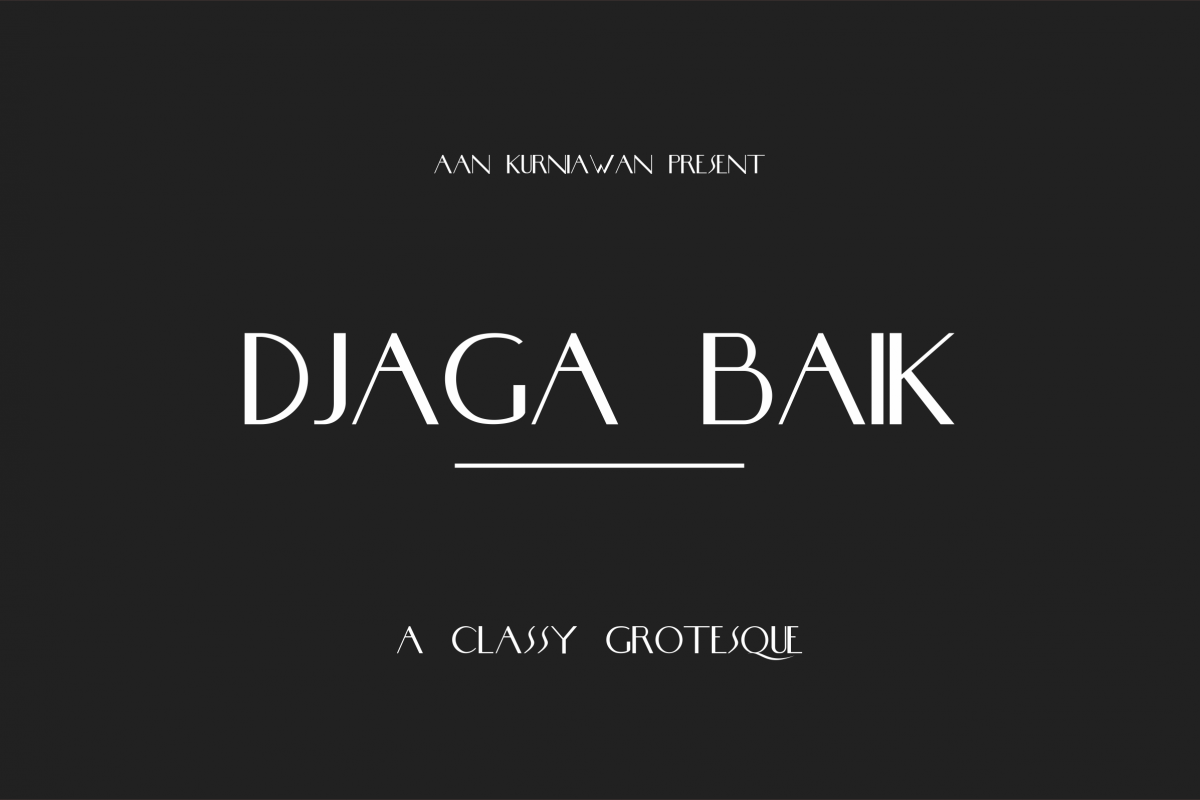
Created By Bangun Studio
DJaga Baik (A classy Grotesque Sans)
Introducing DJaga Baik - A classy grotesque !DJaga Baik is a classic grotesque with a bit of a contrast and a rather high x-height. DJaga Baik will give your logos, holiday cards, wedding invitations, quotes, advertisements, e t c a sleek & elegant look.